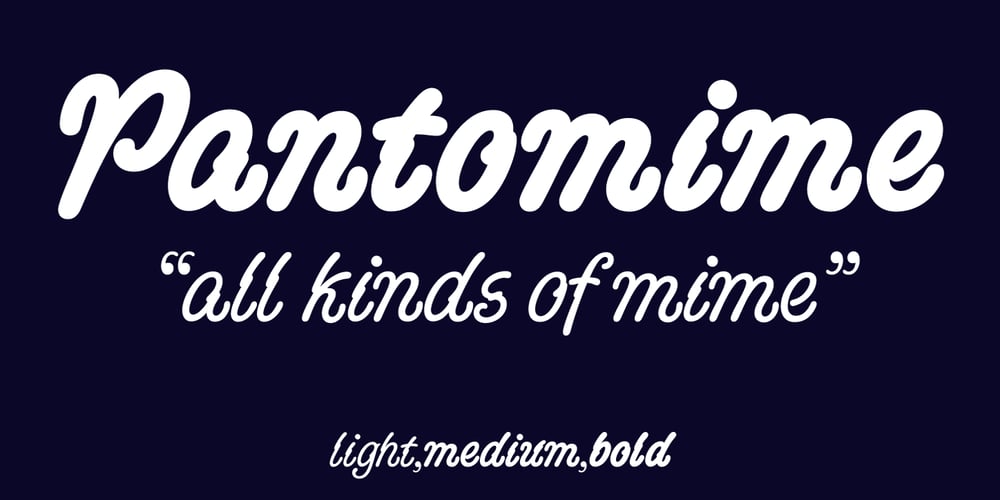
Pantomime Font Family was designed by Alan Meeks and published by Alan Meeks. Pantomime contains 3 styles and family package options. Pantomime is an original and unusual casual Roman Script. Designed for using at larger sizes and headlines I have spaced the fortnight, as I believe this is the most effective way for producing interesting word patterns.